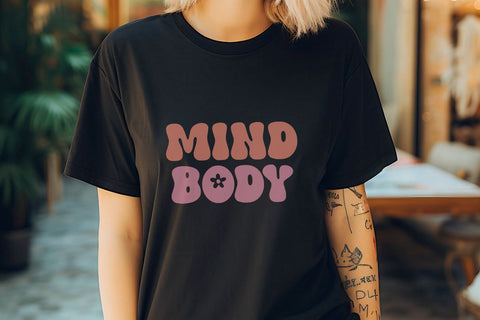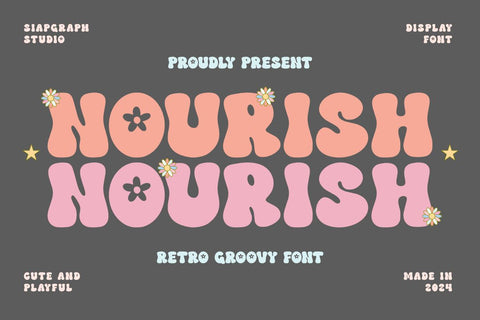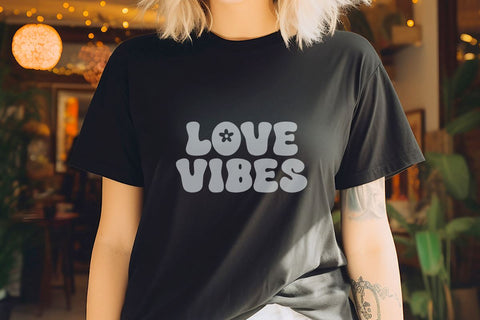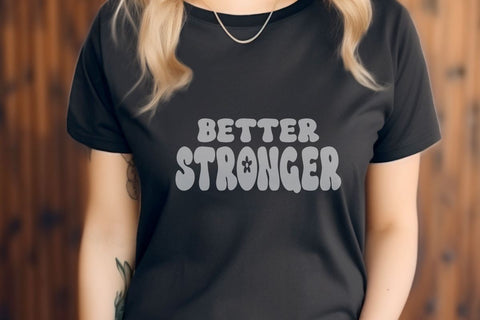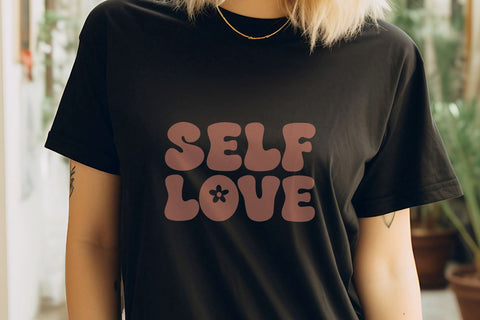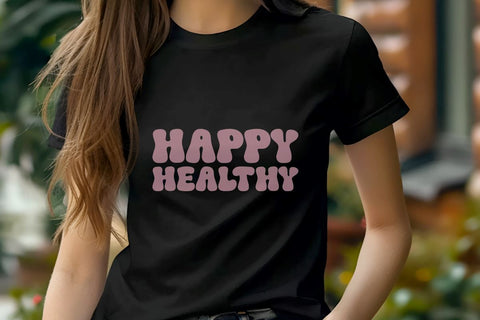
Nourish - Retro Groovy Font
Nourish is a bold retro groovy display font. a font inspired by retro typography. This font is very suitable for Christmas celebrations with a fun retro style. Apart from that, this font is also perfect for various design ideas such as t-shirts, mugs, apparel, book covers, cards, wall art, pillows, keychains, sweaters, hoodies, totebags, Cricut, cherry blossom cup wrap, laser, SVG and other creative ideas. even suitable for various themes such as Christmas, Halloween, fall, autumn, thanksgiving, kids, Easter, spring, and others.